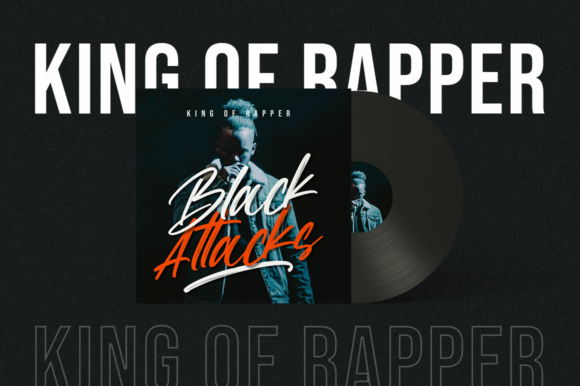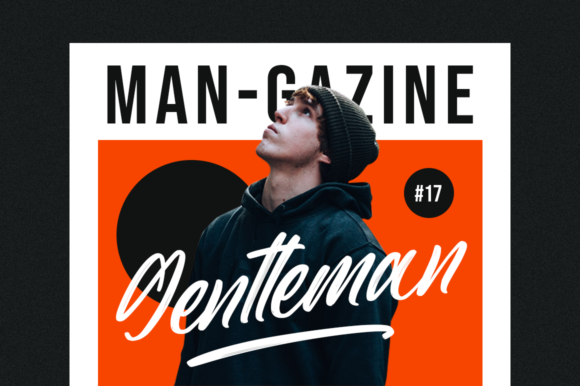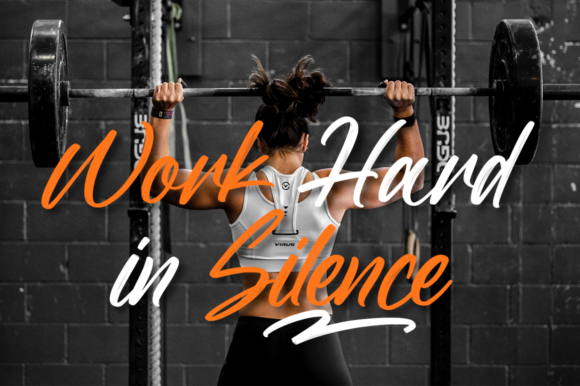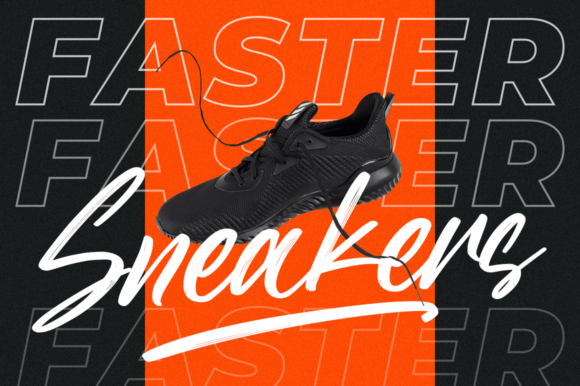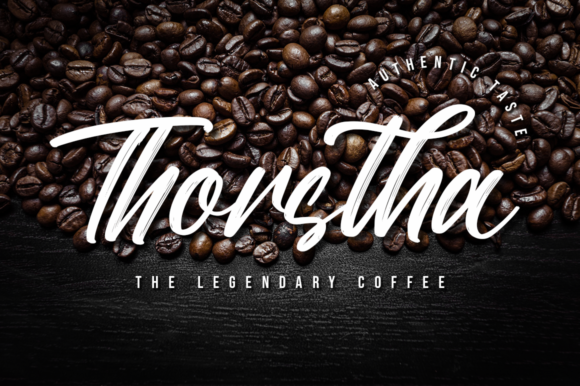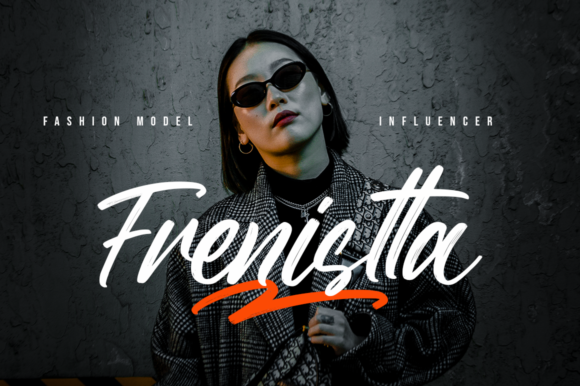
The Ultimate Guide to Blastter Font: Adding a Touch of Nostalgia to Your Designs
I’ll never forget the time I was working on a project for a client who wanted a bold, eye-catching font that screamed confidence and energy. I scoured the internet, tried out countless fonts, but nothing seemed quite right. That was until I stumbled upon Blastter Font – a cool, bold, and paint-brushed handwritten font that instantly captured the vibe I was going for. In this article, I’ll share my love for Blastter Font, its features, and provide a comprehensive guide on how to use it in various design platforms.
An Honest Review of Blastter Font
What I Love About Blastter Font
• ✨ Unique and bold personality: Blastter Font reads as strong, confident, and dynamic, making it perfect for headlines, titles, and emphasis text.
• ✅ Nostalgic character: The paint-brushed texture gives Blastter Font a retro feel that can add a touch of warmth and personality to your designs.
• 💡 Versatility: Blastter Font can be used for a wide range of design projects, from posters and flyers to social media graphics and branding materials.
While Blastter Font is an amazing addition to any design project, there are a few things to keep in mind:
• 🤔 Legibility at small sizes: Due to its bold and textured nature, Blastter Font may not be the best choice for body text or small font sizes.
• ⚠️ Overuse: While Blastter Font is incredibly versatile, using it excessively can make your design look overwhelming or chaotic.
The Backstory of Blastter Font
Blastter Font was designed by a team of creatives who wanted to create a font that captured the energy and confidence of the 80s and 90s. Inspired by graffiti, street art, and retro typography, Blastter Font was born. With its bold, paint-brushed texture and dynamic personality, it’s no wonder Blastter Font has become a favorite among designers and crafters.
Font Name Blastter Font
Author RockboyStudio
Q: What type of projects is Blastter Font best suited for?
A: Blastter Font is perfect for bold, eye-catching designs like posters, flyers, social media graphics, and branding materials.
Q: Is Blastter Font available in different weights or styles?
A: Yes, Blastter Font comes in various weights and styles, including regular, bold, and italic.